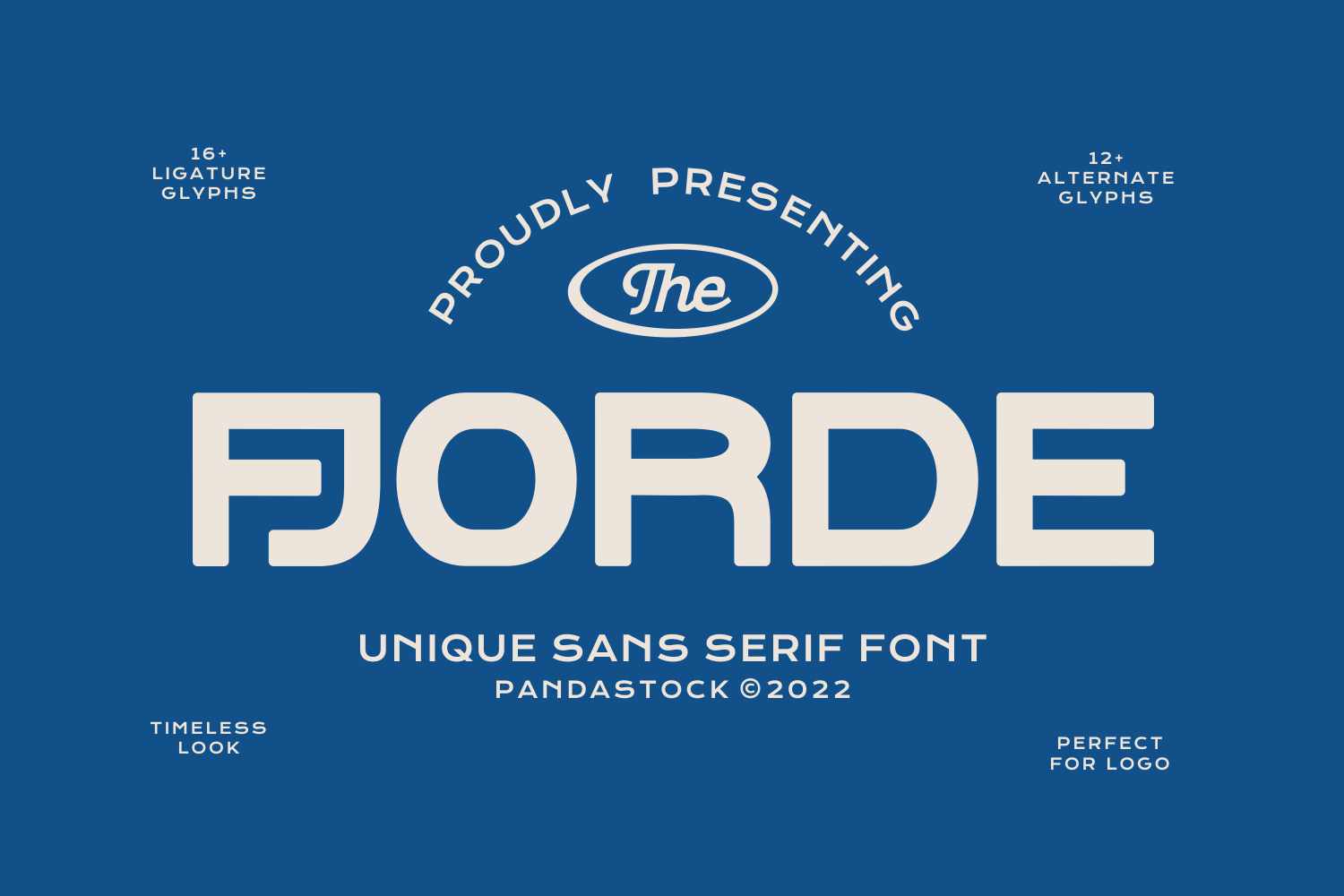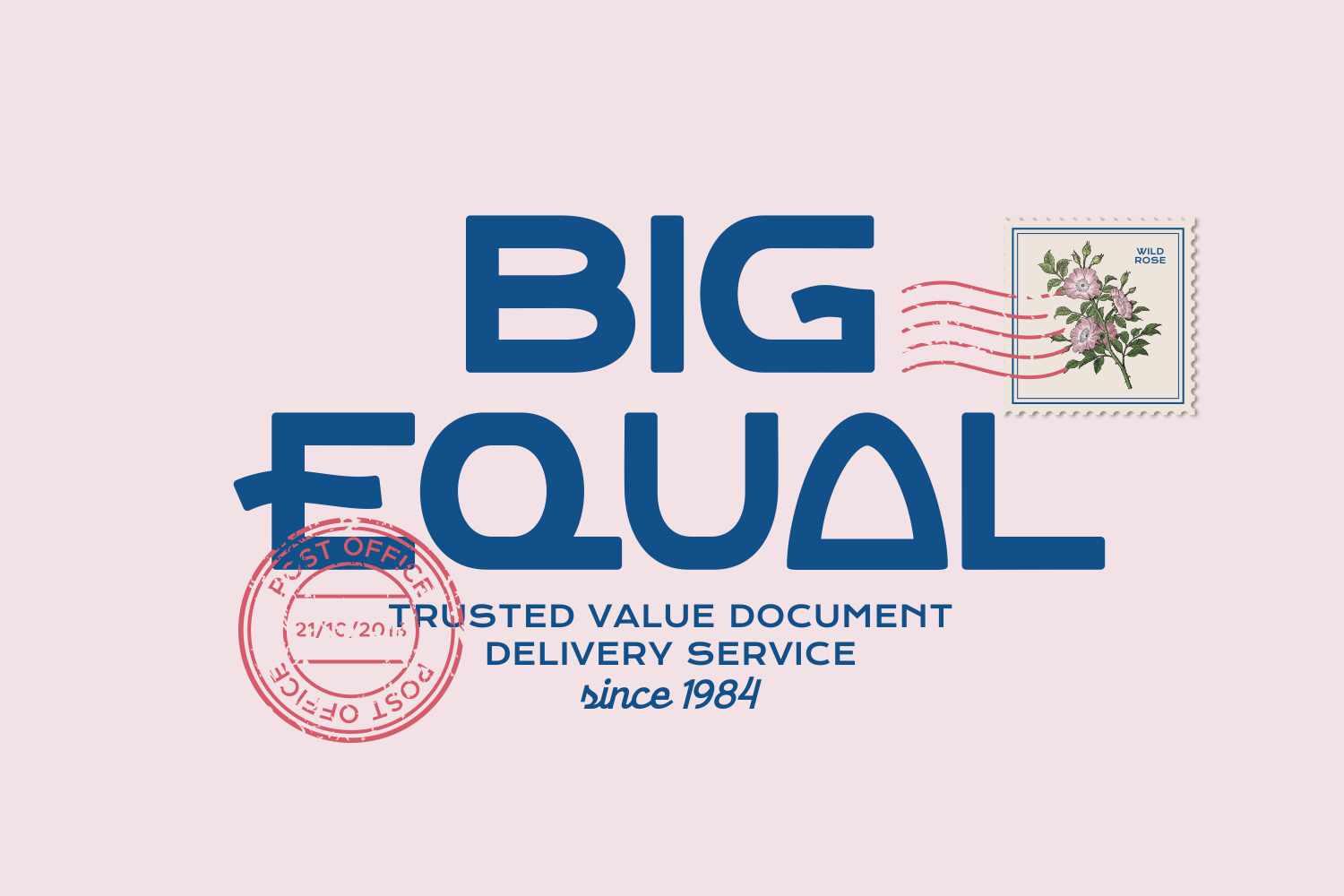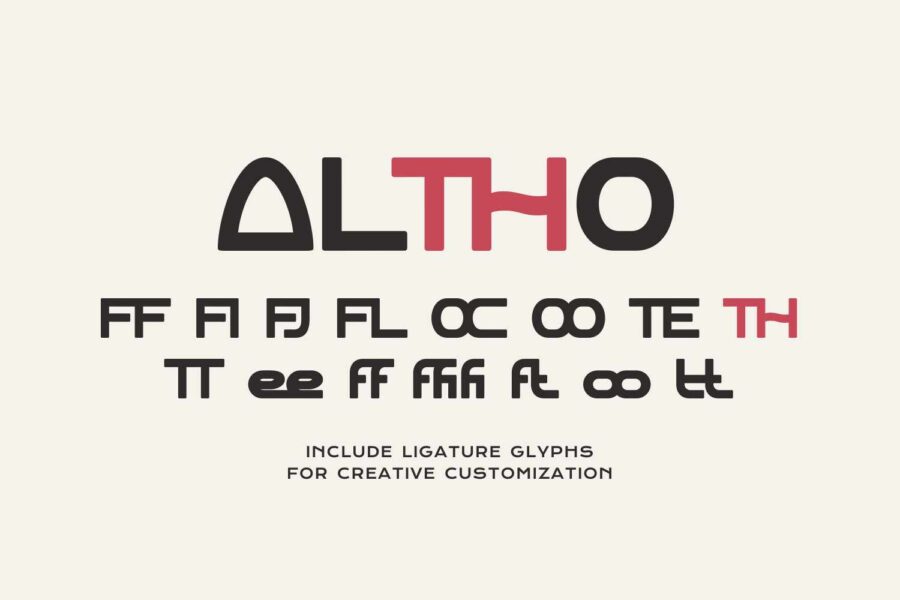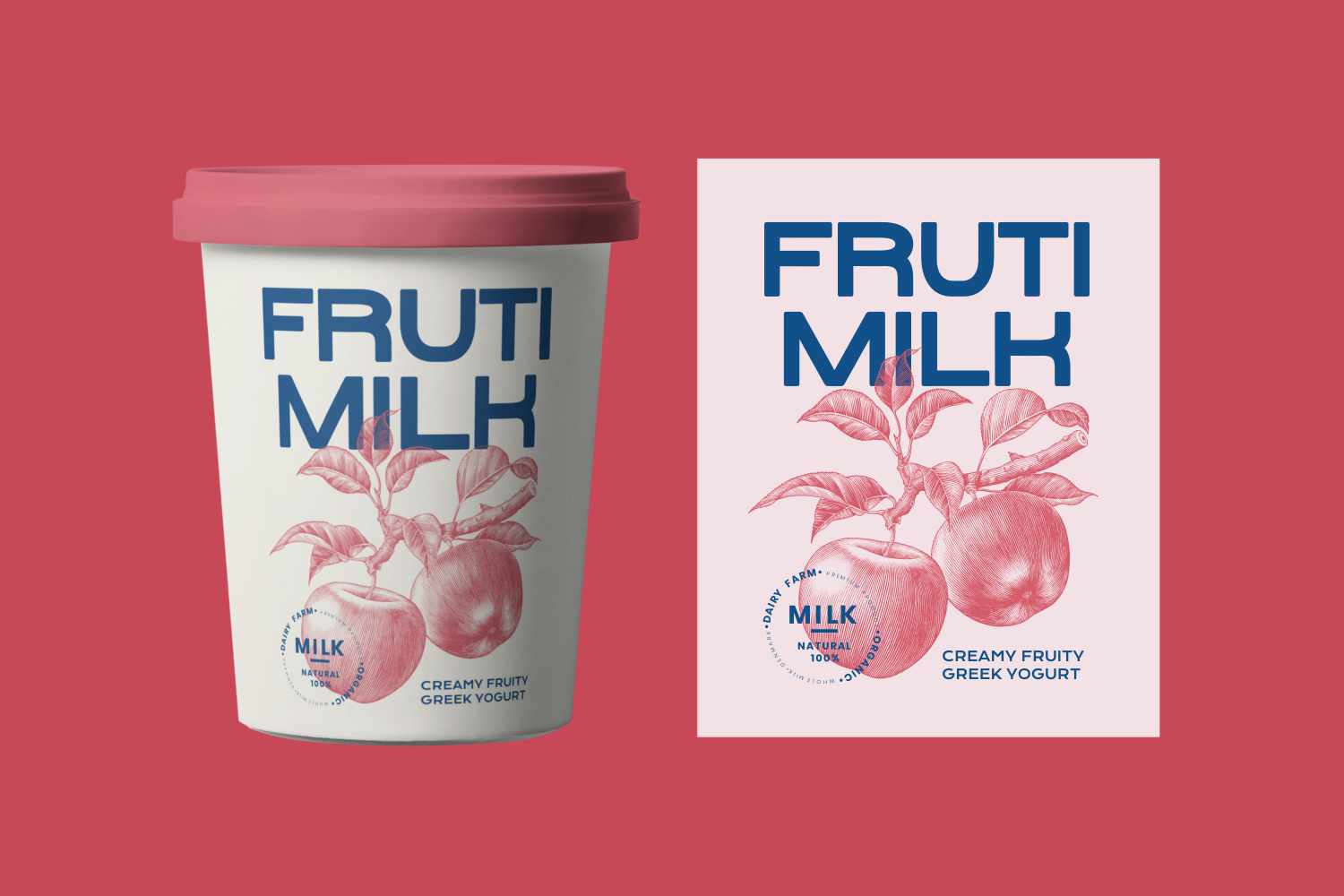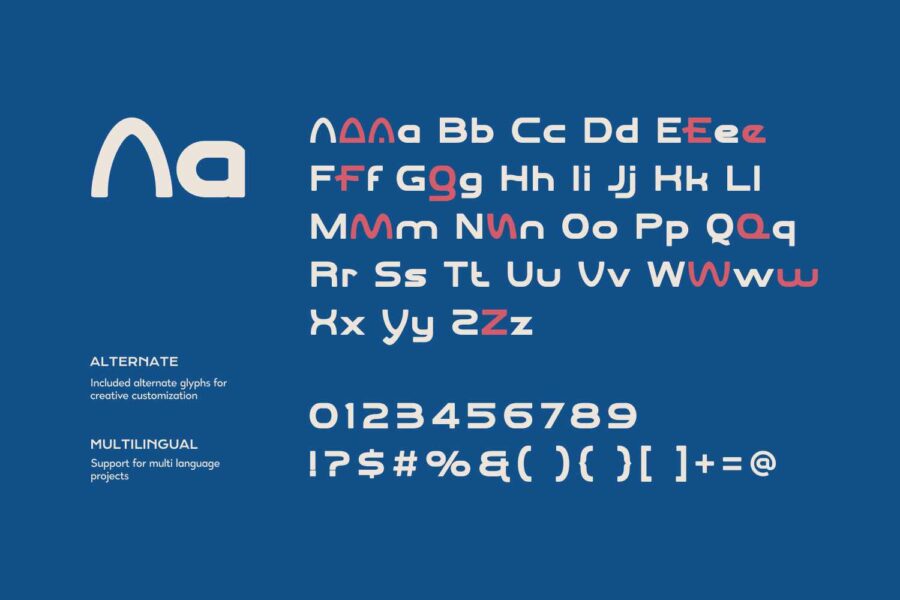
Fjorde
Fjorde is a Unique Sans Serif Font that combines bold geometric shapes with playful modern touches. Its strong structure and distinctive letterforms make it perfect for logos, branding, packaging, and editorial design. With 16+ ligature glyphs and 12+ alternates, Fjorde offers creative flexibility, allowing you to customize your typography for standout results.
Designed with a timeless yet contemporary style, Fjorde adapts seamlessly across both digital and print applications. Whether used for lifestyle products, posters, labels, or innovative brand identities, this font brings clarity, character, and originality to every project.